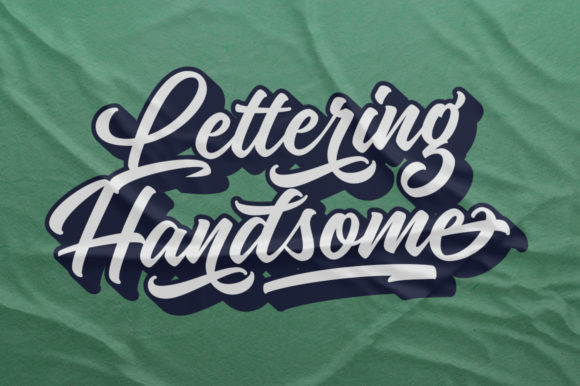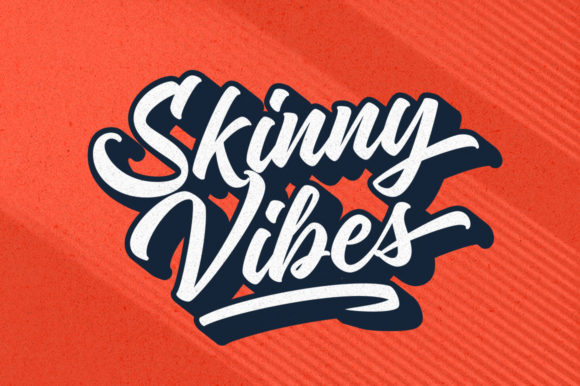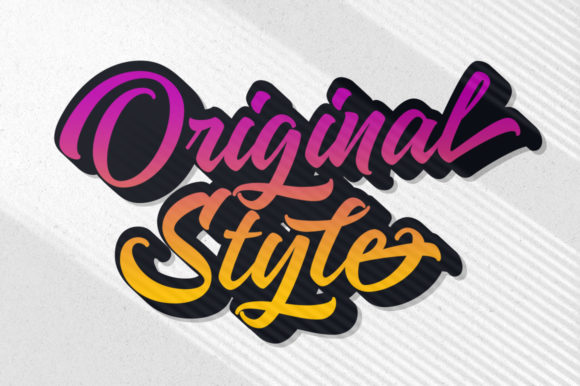
Magister Script Font
Magister Script is an outstanding and flowing handwritten font. Use this beautiful font to add that special touch to any design idea you can think of!